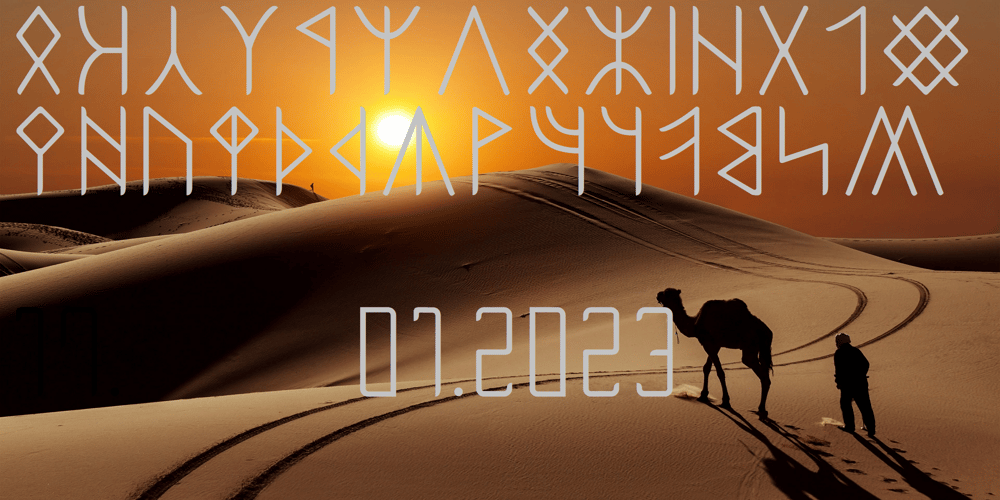
Ongunkan Wardruna Arabic Runes Font Family was designed by Osman Nuri ALKAN and published by Runic World Tamgacı. Ongunkan Wardruna Arabic Runes contains 1 styles and family package options. Wardruna Arabic is a method of writing Arabic with a Runic-like alphabet devised by Devin Lester. He imagined that if some vikings had settled in the Middle East, they might have started speaking Arabic and writing it with a version of the Runic alphabet. This particular alphabet is based on Tolkien’s Cirth Runes.A band of vikings went to Baghdad after raiding in Europe. The markets in Constantinople were closed as the Turks had just sacked the city. These men had heard of the great market in Baghdad and went there to sell their wares, seeing that this land was warm and fertile they decided to stay. They ended up settling the land and taking Arab wives and having children, because of thier Northern European accent their Arabic evolved into a part-Arabic dialect of Iraqi arabic. This is why today you see a few Arabs with green eyes and dark blonde or red hair. The Arabic alphabet was too fluid for them and vikings disdained the use of paper as a persons writings could be burned, so the evolved their runes to fit Arabic.